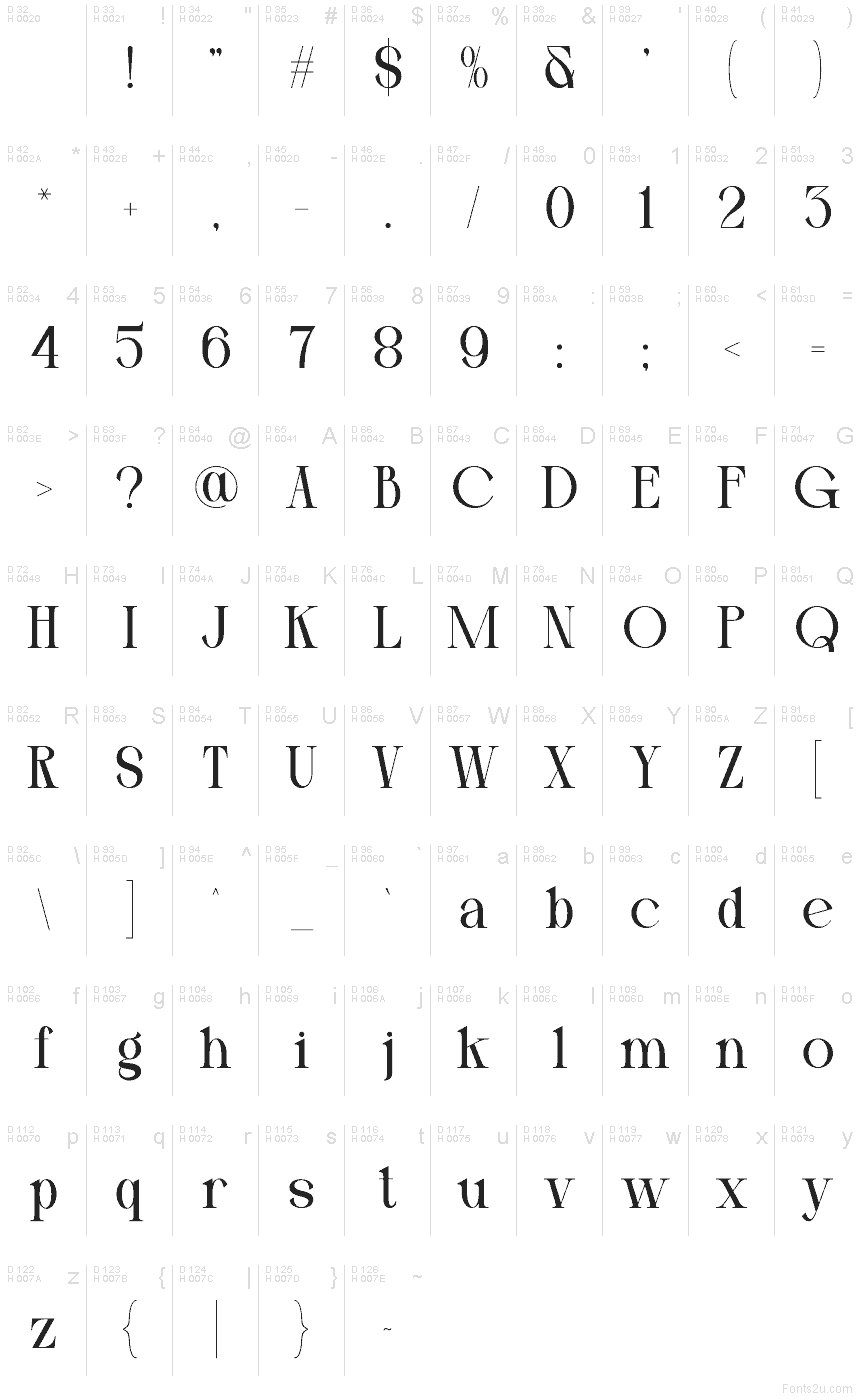
LORENNA
Lorenna font by Gilang Ternadho is a condensed serif typeface that embodies elegance and sophistication. Presenting refined lines, the font combines classic and traditional aesthetics to provide a unique visual cut for all users. Take a look at how this serif font can elevate your design projects, especially if you’re working on editorial designs.
This free serif font can be featured in headers and body copy of magazines and newspapers. Use it for book covers or combine it with another elegant font for poster titles. It also makes an excellent choice when designing logos, branding, advertising material, kid-oriented projects, stationery items, etc…